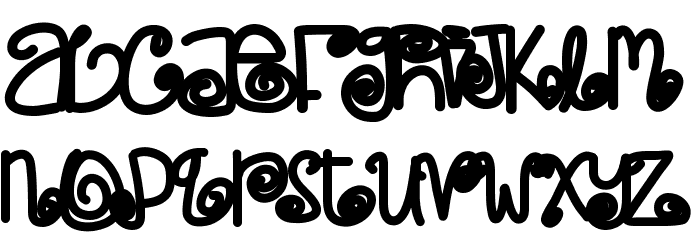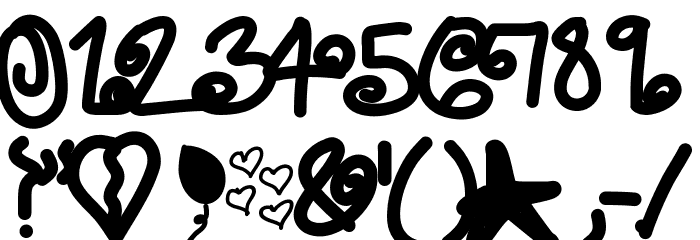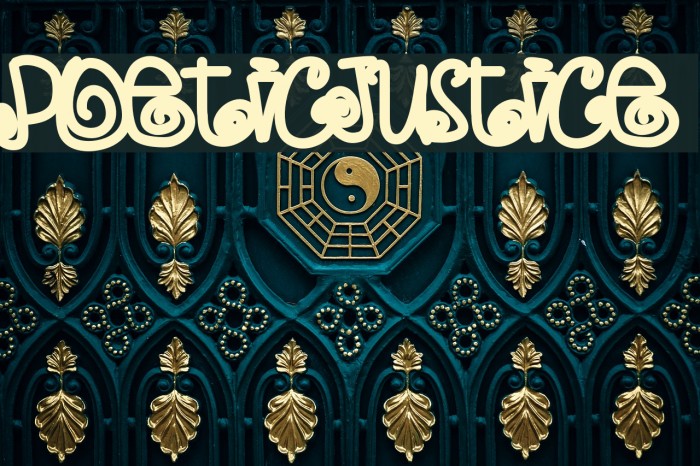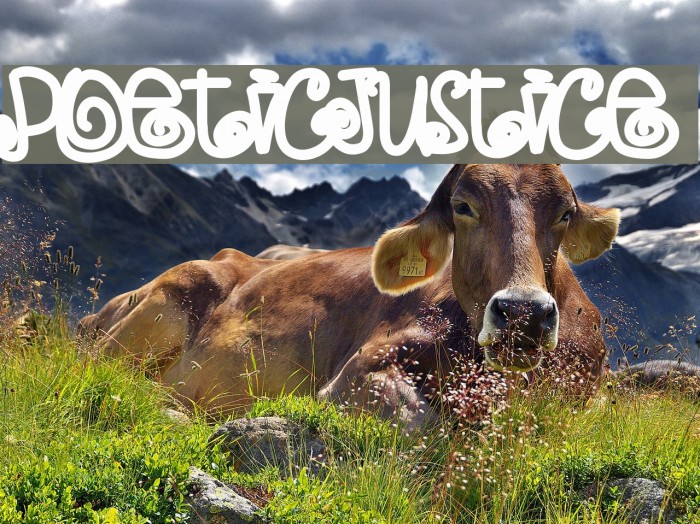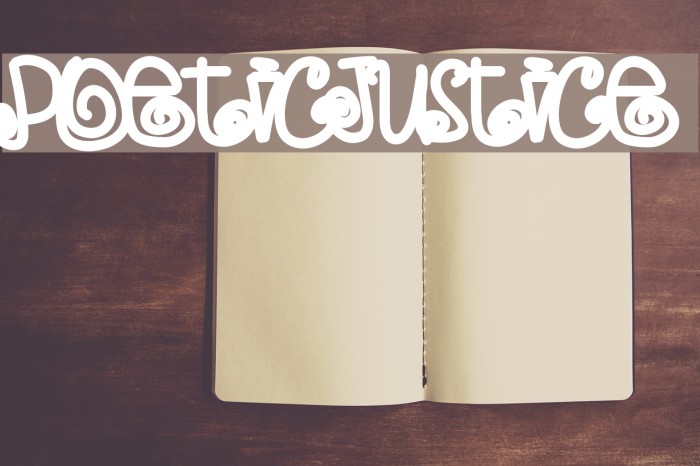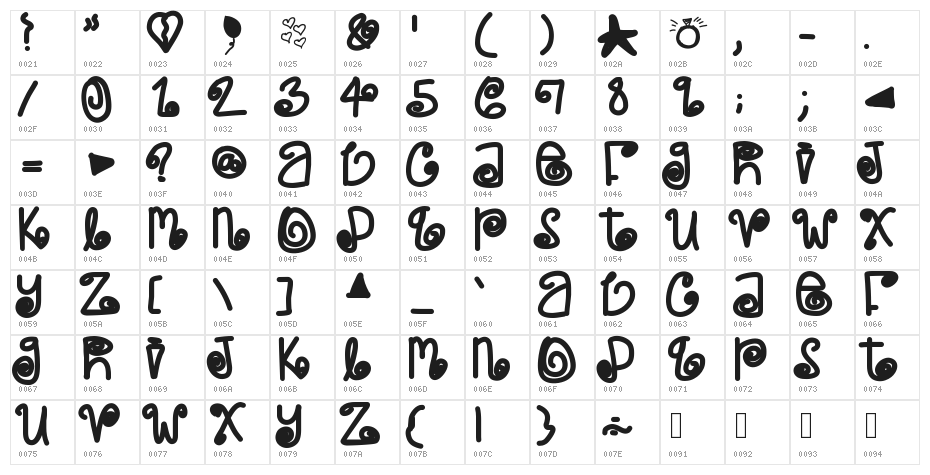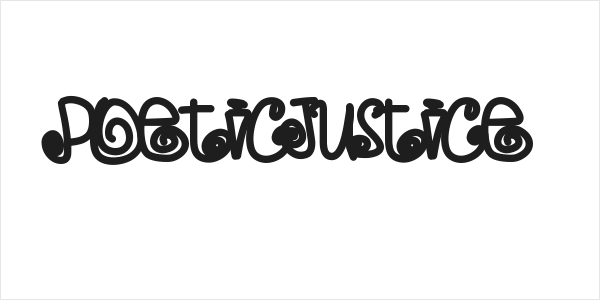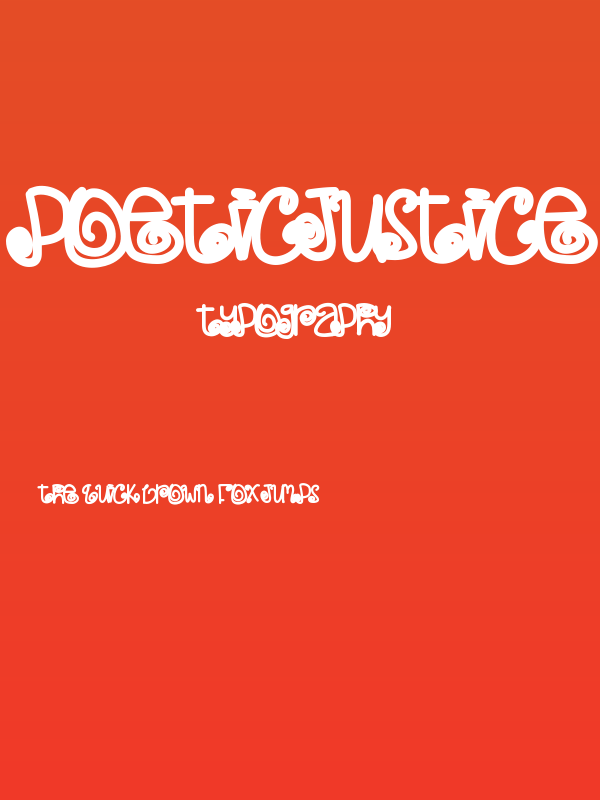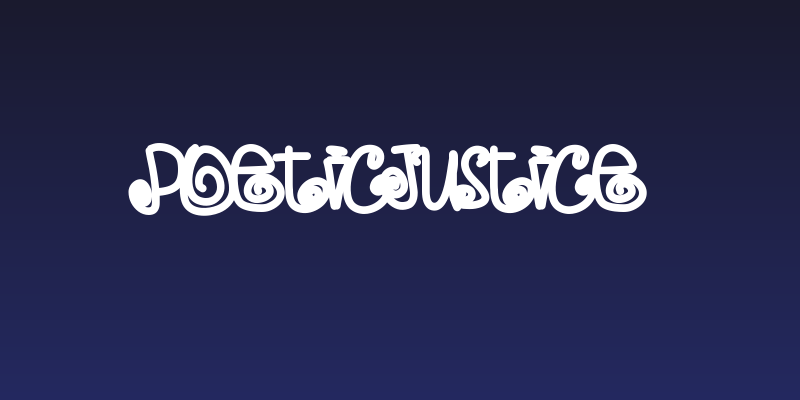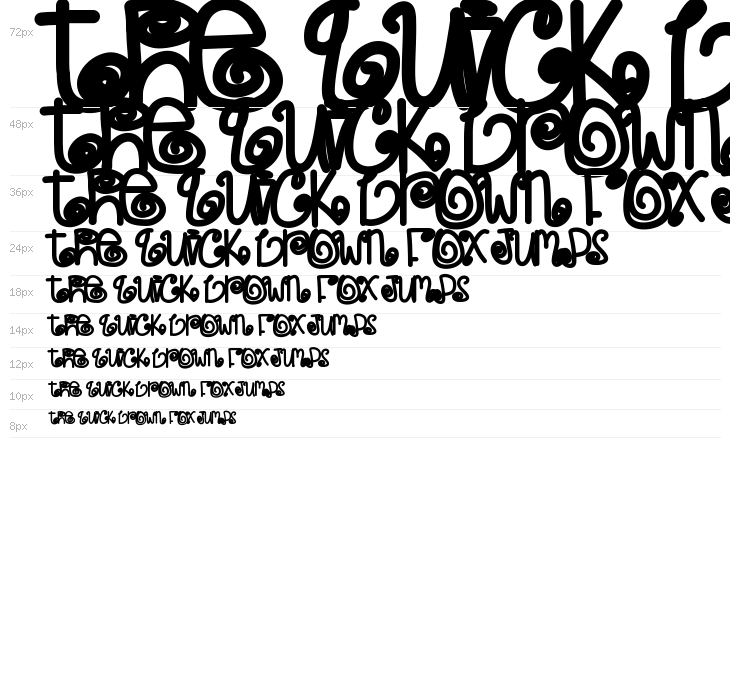
PoeticJustice Font
This font exudes a bold and expressive style, characterized by its thick, swirling strokes and playful, artistic flair. The letters are highly decorative, with a whimsical, almost graffiti-like appearance that captures attention immediately. Each character is uniquely crafted, featuring exaggerated curves and loops that give the font a dynamic and lively personality. The numbers and special characters follow the same artistic theme, ensuring consistency across all elements. This font is perfect for projects that require a touch of creativity and boldness, making it ideal for artistic designs, posters, and branding that seeks to stand out.
A bold, expressive font with swirling, decorative strokes and a playful, artistic flair.
- Proposed Projects: Ideal for artistic designs, posters, branding, and any project that requires a bold, creative touch.
- Use Case: Headlines, Logos, Artistic designs